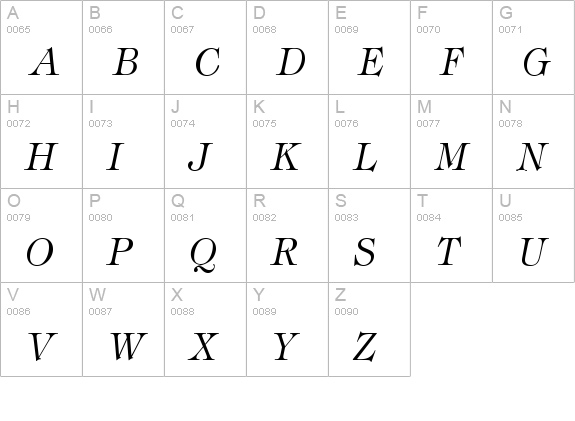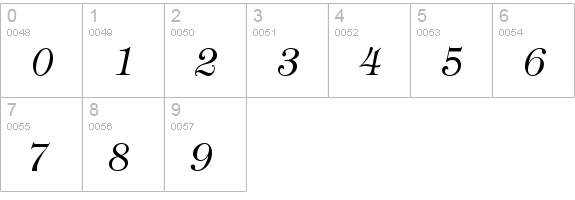
TiffanyEF-LightItalic font is a stunning and elegant typeface that adds a touch of sophistication to any design project. Its delicate and graceful curves are complemented by a slight slant, giving it a sense of movement and fluidity. This font is perfect for adding a subtle yet distinctive touch to various design applications, such as branding, logos, invitations, and more. Its light weight and italic style bring a sense of elegance and sophistication, making it ideal for projects that require a refined and polished look. One of the best things about TiffanyEF-LightItalic font is that it is free to download at FontsMarket.com. This means that you can easily access and use this beautiful font without any cost. It is readily available for anyone who wants to add a touch of elegance to their designs, without having to worry about breaking the bank. So why wait? Download TiffanyEF-LightItalic font today and elevate your design projects with its timeless beauty. Whether you are a professional designer or a creative enthusiast, this font will surely become a valuable addition to your font library.